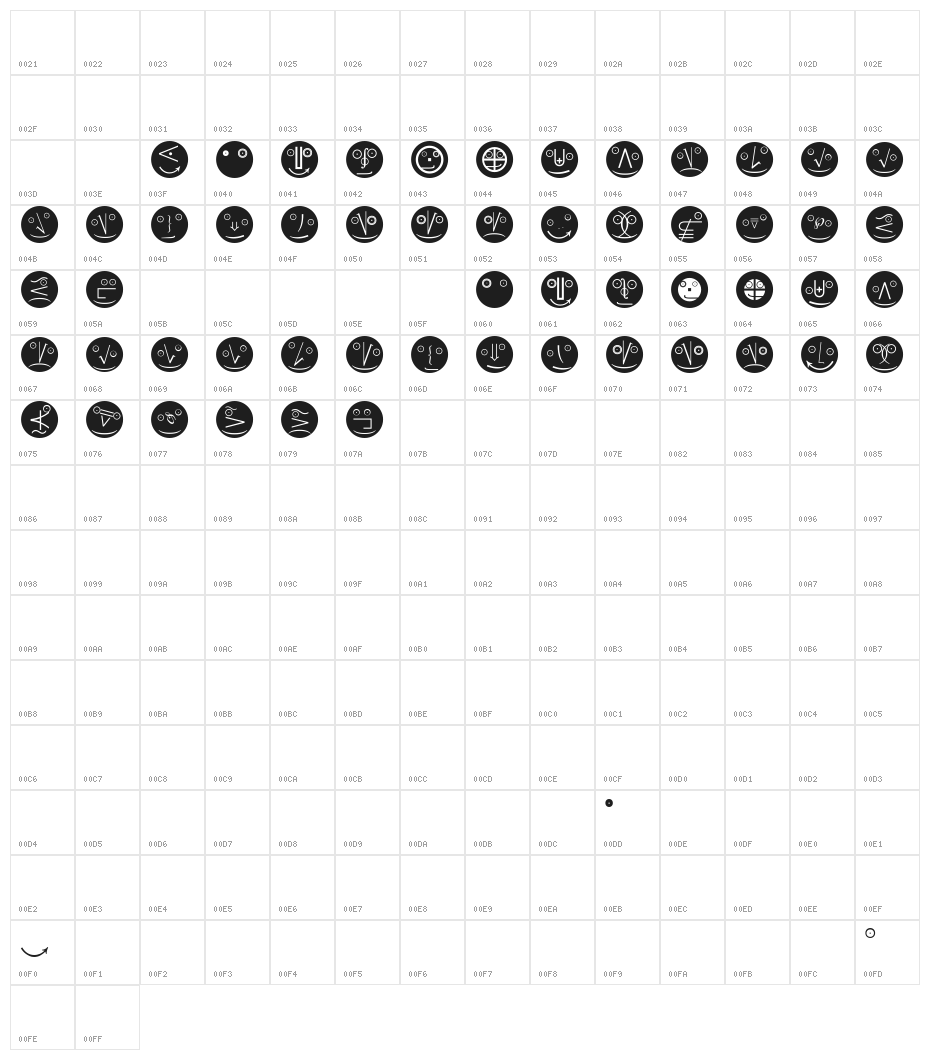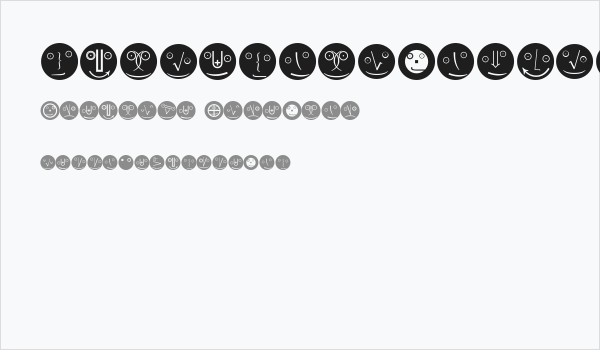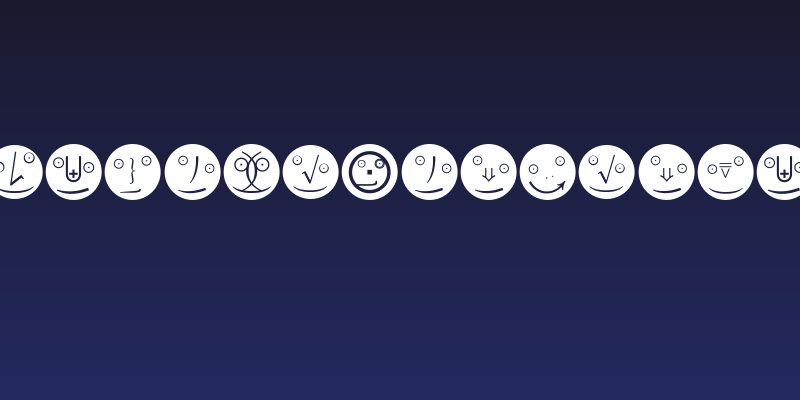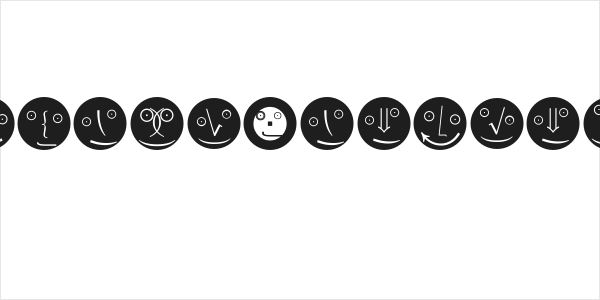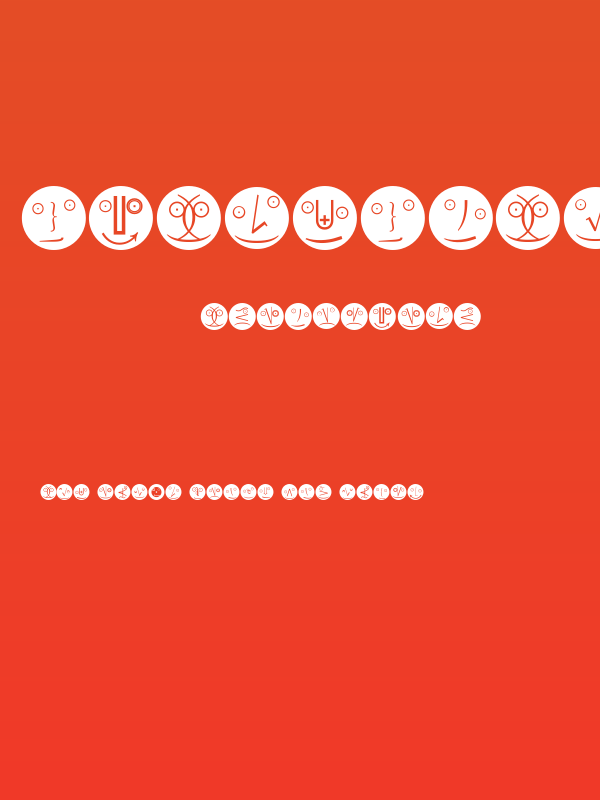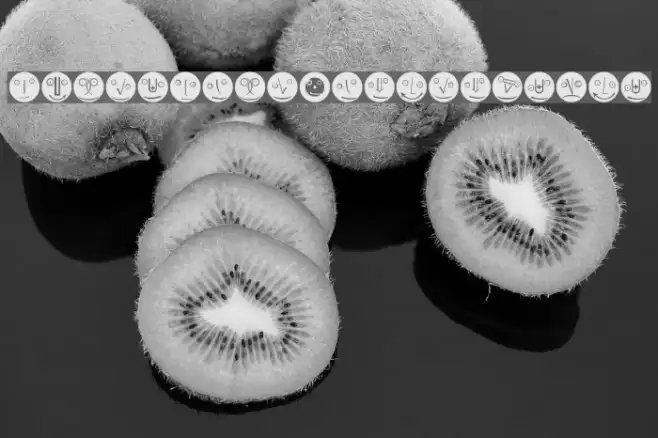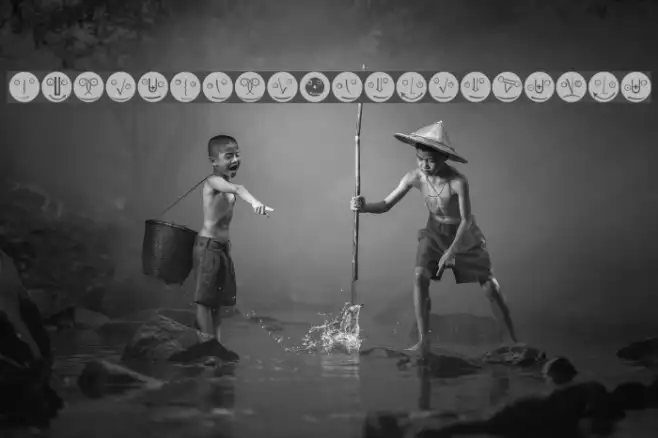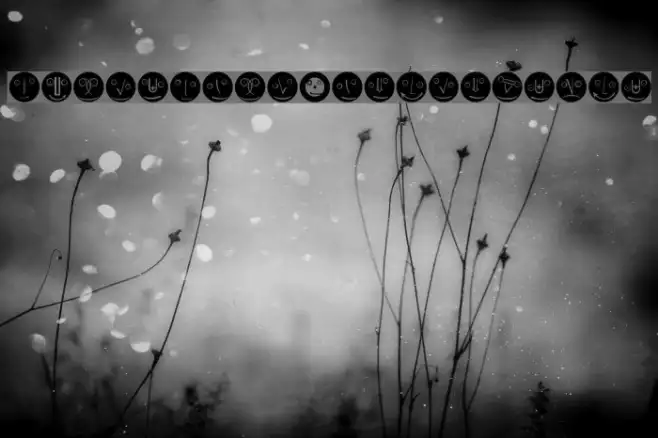
MathEmoticonsInverse Font
MathEmoticonsInverse Description
This is not a traditional font but rather a series of emoticons created using mathematical symbols and characters. Each character is designed to resemble a face with various expressions, utilizing elements like circles, lines, and curves to form eyes, mouths, and other facial features. The characters are enclosed in circular shapes, giving them a cohesive and playful appearance. The design is highly creative and abstract, focusing on visual representation rather than textual readability. This set is ideal for adding a unique and whimsical touch to digital communications, allowing users to express emotions in a mathematical or scientific context.
| Use Case | Digital communication, Educational tools |
| Proposed Projects | Ideal for digital communication platforms, educational tools, or any project requiring a playful and abstract representation of emotions. |